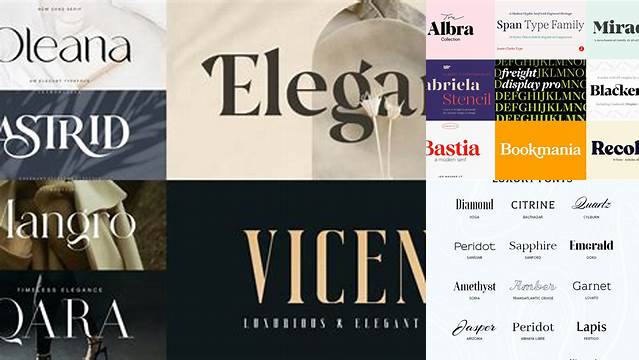
Elegant Fonts For Logos: Design Guide
Choosing the right font is crucial when designing a logo. It's not just about picking something that looks pretty; it's about finding a font that perfectly represents your brand's personality and values. An elegant font can elevate your logo, giving it a sophisticated and timeless feel. But with so many options out there, where do you even begin? Don't worry, guys, we've got you covered! This guide will walk you through everything you need to know about selecting elegant fonts for logos, from understanding different font styles to exploring specific font recommendations and best practices. Let's dive in!
1. Understanding the Importance of Font Choice in Logo Design
The font you choose for your logo is more than just a visual element; it's a powerful communication tool. It's the first thing people see and often the first impression they get of your brand. A well-chosen font can convey trust, sophistication, and credibility, while a poorly chosen font can make your brand look unprofessional or even untrustworthy. Think about it: a playful, cartoonish font might work for a children's toy brand, but it would be a disastrous choice for a law firm. Similarly, an elegant font can instantly add a touch of class and refinement to your logo, making it perfect for luxury brands, high-end services, or businesses that want to project a sense of timeless style. Selecting the right elegant font requires careful consideration of your brand identity, target audience, and the overall message you want to convey. It's an investment in your brand's visual identity that can pay off big time.
2. What Makes a Font Elegant? Key Characteristics
So, what exactly makes a font "elegant"? It's a combination of several key characteristics. Generally, elegant fonts often feature delicate lines, smooth curves, and a sense of balance and harmony. They tend to be classic and timeless, rather than trendy or overly stylized. Serif fonts, with their small decorative strokes at the ends of letters, are often associated with elegance and tradition. Think of fonts like Times New Roman or Garamond – they've been used for centuries and still evoke a sense of sophistication. However, sans-serif fonts, which lack these serifs, can also be elegant when designed with clean lines and a minimalist aesthetic. Ultimately, the elegance of a font comes down to its overall design and how it makes you feel. Does it exude class, refinement, and a timeless appeal? If so, you're on the right track.
3. Serif vs. Sans-Serif: Which is More Elegant?
This is a classic debate in the world of typography! There's no definitive answer, as both serif and sans-serif fonts can be incredibly elegant. Serif fonts, with their traditional serifs, often convey a sense of history, authority, and formality. They're a great choice for brands that want to project a sense of established trust and heritage. Think luxury fashion brands or classic publishing houses. On the other hand, sans-serif fonts, with their clean and modern lines, can also be very elegant, especially when used in minimalist designs. They can convey a sense of sophistication and modernity, making them ideal for tech companies or contemporary brands. The key is to choose a font that aligns with your brand's personality and the overall aesthetic you're trying to achieve. Don't get caught up in the serif vs. sans-serif debate; focus on finding the font that best represents your brand.
4. Top 10 Elegant Serif Fonts for Logos
Ready to explore some specific font recommendations? Let's start with serif fonts. Here are 10 elegant serif fonts that are perfect for logos:
- Garamond: A classic and timeless font that exudes sophistication.
- Times New Roman: A versatile and widely recognized font that conveys authority.
- Bodoni: A bold and stylish font with high contrast between thick and thin strokes.
- Didot: A similar font to Bodoni, known for its elegance and refinement.
- Caslon: A classic serif font with a warm and inviting feel.
- Playfair Display: A modern serif font with a touch of elegance and drama.
- Merriweather: A readable and elegant font that works well in both print and digital.
- Lora: A well-balanced serif font with a contemporary feel.
- Butler: A versatile serif font with a variety of weights and styles.
- Mrs Eaves: A quirky and elegant font with a unique personality.
5. Top 10 Elegant Sans-Serif Fonts for Logos
Now, let's move on to sans-serif fonts. These fonts offer a cleaner, more modern aesthetic, but can still be incredibly elegant. Here are 10 excellent choices:
- Helvetica: A timeless and versatile font that's a staple in the design world.
- Futura: A geometric sans-serif font with a clean and modern feel.
- Avenir: A well-balanced and readable sans-serif font.
- Century Gothic: A stylish and geometric sans-serif font.
- Montserrat: A popular and versatile sans-serif font with a modern feel.
- Raleway: An elegant and sophisticated sans-serif font.
- Poppins: A geometric sans-serif font that's perfect for digital use.
- Lato: A modern and readable sans-serif font with a warm feel.
- Open Sans: A highly readable and versatile sans-serif font.
- Circular Std: A geometric sans-serif font with a contemporary feel.
6. Combining Elegant Fonts: Pairings That Work
Sometimes, the most effective logos use a combination of fonts. This allows you to create visual interest and highlight different aspects of your brand. When pairing fonts, it's important to choose fonts that complement each other, rather than clash. A common approach is to pair a serif font with a sans-serif font. For example, you could use a bold serif font for your brand name and a clean sans-serif font for your tagline. Or, you could pair a classic serif font like Garamond with a modern sans-serif font like Montserrat. Experiment with different pairings to see what works best for your brand. Just remember to keep it simple – using more than two fonts in a logo can make it look cluttered and confusing.
7. The Psychology of Fonts: How Fonts Evoke Emotions
Fonts have the power to evoke emotions and associations. This is because we subconsciously associate certain font styles with different qualities and characteristics. For example, serif fonts often evoke feelings of tradition, authority, and trustworthiness, while sans-serif fonts tend to convey modernity, simplicity, and clarity. Script fonts can evoke elegance, femininity, and creativity, while display fonts can convey personality, playfulness, and boldness. Understanding the psychology of fonts can help you choose a font that aligns with your brand's personality and the emotions you want to evoke in your audience. Think about the feeling you want your logo to convey and choose a font that supports that message.
8. Font Licensing: Understanding Usage Rights
Before you start using a font in your logo, it's crucial to understand its licensing terms. Most fonts are copyrighted, and you need a license to use them legally. Some fonts are free for personal use but require a commercial license for business purposes. Other fonts are only available for purchase. Using a font without the proper license can lead to legal issues and financial penalties. Always check the font's licensing terms before using it in your logo or other branding materials. There are many resources online where you can find free and paid fonts with clear licensing information.
9. Where to Find Elegant Fonts: Resources and Marketplaces
So, where can you find these elegant fonts we've been talking about? There are tons of resources available, both free and paid. Here are a few popular options:
- Google Fonts: A vast library of free, open-source fonts that are perfect for websites and logos.
- Adobe Fonts: A subscription-based service that offers access to thousands of high-quality fonts.
- MyFonts: A marketplace where you can purchase fonts from independent designers.
- Fontspring: Another font marketplace with a wide selection of fonts.
- Creative Market: A marketplace that offers fonts, graphics, and other design assets.
Explore these resources and find the perfect font for your logo. Don't be afraid to try out different options and see what resonates with your brand.
10. Font Weight and Size: Considerations for Legibility
Even the most elegant font won't be effective if it's not legible. Font weight and size play a crucial role in legibility, especially in a logo. A font that's too thin or too small might be difficult to read, especially when printed on a small scale or viewed on a mobile device. Conversely, a font that's too bold or too large can look overwhelming and detract from the overall design. Choose a font weight and size that's appropriate for your logo's context and ensure that it's legible across different mediums. Test your logo at various sizes to ensure it remains clear and readable.
11. Kerning and Letter Spacing: Fine-Tuning Your Font
Kerning and letter spacing are subtle but important aspects of typography that can significantly impact the appearance of your logo. Kerning refers to the spacing between individual letters, while letter spacing refers to the overall spacing between all letters in a word or phrase. Adjusting kerning and letter spacing can improve legibility and create a more visually pleasing logo. If the letters in your logo are too close together, it can look cramped and difficult to read. If they're too far apart, the logo can look disjointed. Fine-tuning kerning and letter spacing is a crucial step in the logo design process.
12. Font Color: Complementing Your Elegant Font Choice
The color you choose for your font can further enhance its elegance and impact. Classic colors like black, white, and gold often convey sophistication and luxury. However, don't feel limited to these traditional choices. Consider your brand's color palette and choose a font color that complements it. A subtle pastel color can add a touch of elegance and femininity, while a deep jewel tone can convey richness and sophistication. Experiment with different color combinations to find what works best for your brand and the overall aesthetic you're trying to achieve. The font color should work in harmony with the font itself to create a cohesive and visually appealing logo.
13. Font Hierarchy: Creating Visual Interest in Your Logo
If your logo includes multiple words or elements, font hierarchy can help you create visual interest and guide the viewer's eye. Font hierarchy refers to the use of different font sizes, weights, and styles to emphasize certain elements over others. For example, you might use a larger, bolder font for your brand name and a smaller, lighter font for your tagline. This creates a clear visual distinction and helps viewers understand the relative importance of different elements. Experiment with font hierarchy to create a logo that's both visually appealing and easy to understand. A well-defined font hierarchy can make your logo more impactful and memorable.
14. Font Adaptability: Ensuring Your Logo Works Across Platforms
In today's digital world, it's essential to ensure that your logo looks good across different platforms and devices. This means choosing a font that's adaptable and scalable. Some fonts look great in print but lose their legibility on screen, while others are optimized for digital use but don't translate well to print. Choose a font that works well in both mediums and consider its scalability. Test your logo at different sizes to ensure that it remains clear and readable on everything from business cards to billboards. A versatile font will ensure that your logo looks its best, no matter where it's displayed.
15. Font Trends: Should You Follow Them?
Font trends come and go, just like any other design trend. While it can be tempting to choose a trendy font for your logo, it's important to consider the long-term implications. A trendy font might look great today, but it could feel dated in a few years. An elegant font, on the other hand, is often timeless and classic. While it's good to be aware of current font trends, don't feel obligated to follow them. Focus on choosing a font that aligns with your brand's personality and values, rather than one that's simply popular at the moment. A timeless font will ensure that your logo remains relevant for years to come.
16. Creating a Mood Board for Elegant Font Inspiration
If you're feeling stuck or overwhelmed by the font selection process, creating a mood board can be a helpful way to gather inspiration. A mood board is a visual collage that represents your brand's aesthetic and personality. Include images, colors, textures, and other elements that resonate with your brand. You can also include examples of elegant fonts that you like. Creating a mood board can help you clarify your vision and make the font selection process more focused. It's a great way to visually explore different options and identify fonts that align with your brand's overall style.
17. The Importance of Testing Your Font Choices
Once you've narrowed down your font choices, it's essential to test them in different contexts. See how they look on your website, social media profiles, and printed materials. Get feedback from others and see what resonates with them. Testing your font choices can help you identify any potential issues and ensure that your logo looks its best across different mediums. It's a crucial step in the logo design process that can prevent costly mistakes down the road. Don't skip the testing phase; it's worth the effort.
18. Using Elegant Fonts in Different Industries
Elegant fonts can be used effectively in a variety of industries, from luxury fashion to high-end services. However, it's important to choose a font that's appropriate for your specific industry and target audience. For example, a classic serif font might be a great choice for a law firm or a financial institution, while a modern sans-serif font might be a better fit for a tech company or a creative agency. Consider your industry's norms and expectations when choosing a font. Research what fonts are commonly used in your industry and see if they align with your brand's personality and values. Choosing a font that's appropriate for your industry can help you establish credibility and connect with your target audience.
19. The Role of Font in Brand Recognition
A well-chosen font can play a significant role in brand recognition. When people see your logo, they'll subconsciously associate the font with your brand. If you choose a unique and memorable font, it can help your logo stand out and become instantly recognizable. Think about iconic logos like Coca-Cola or Disney – the fonts they use are instantly recognizable and associated with their brands. Choosing a distinctive font can help you create a strong brand identity and improve brand recognition. It's an investment in your brand's visual identity that can pay off big time.
20. Common Mistakes to Avoid When Choosing Logo Fonts
Choosing the right font for your logo is crucial, but it's also easy to make mistakes. Here are a few common mistakes to avoid:
- Choosing a font that's too trendy: As we discussed earlier, trendy fonts can quickly become dated.
- Using too many fonts: Sticking to one or two fonts creates a more cohesive and professional look.
- Ignoring legibility: A beautiful font is useless if it's not readable.
- Not considering the font's licensing terms: Using a font without a proper license can lead to legal issues.
- Copying competitors: Your logo should be unique and distinctive.
By avoiding these common mistakes, you can ensure that you choose a font that represents your brand effectively.
21. Elegant Script Fonts: Adding a Touch of Personality
Script fonts, with their flowing strokes and handwritten feel, can add a touch of personality and elegance to your logo. These fonts are often associated with creativity, femininity, and sophistication. They're a great choice for brands that want to project a personal and welcoming image. However, script fonts can also be challenging to use effectively. They can be difficult to read at small sizes, and some script fonts can look cluttered or overwhelming. If you're considering using a script font, make sure it's legible and that it aligns with your brand's overall aesthetic. Use script fonts sparingly and pair them with a cleaner font for maximum impact.
22. The Use of Ligatures in Elegant Font Design
Ligatures are special characters that combine two or more letters into a single glyph. They're often used in elegant fonts to create a more fluid and refined appearance. Ligatures can add a touch of sophistication and visual interest to your logo. However, it's important to use ligatures sparingly and in a way that enhances legibility. Overusing ligatures can make your logo look cluttered and difficult to read. Choose fonts with well-designed ligatures and use them strategically to create a subtle but impactful effect. Ligatures are a great way to elevate the elegance of your font choice.
23. Custom Font Design: Creating a Unique Brand Identity
If you truly want to create a unique brand identity, consider commissioning a custom font design. This involves working with a typographer to create a font that's specifically tailored to your brand's needs and personality. Custom fonts can be a significant investment, but they offer several advantages. They ensure that your logo is truly unique and distinctive, and they can help you establish a strong brand identity. A custom font can also be a valuable asset for your brand, as it can be used in all your marketing materials. If you're looking for a truly one-of-a-kind logo, a custom font design might be the perfect solution.
24. Font Alternatives: Finding the Perfect Substitute
Sometimes, you might fall in love with a font that's either too expensive or unavailable for commercial use. In these cases, it's helpful to know how to find font alternatives. There are many online tools and resources that can help you identify fonts that are similar to your favorite fonts. You can also consult with a designer or typographer for recommendations. When searching for font alternatives, focus on finding fonts that share similar characteristics in terms of weight, style, and overall aesthetic. A good font alternative can provide a similar look and feel without breaking the bank or violating copyright laws.
25. The Impact of Font on Website Design
Elegant fonts aren't just for logos; they can also enhance your website design. Choosing the right font for your website can improve readability, create a visually appealing experience, and reinforce your brand identity. When choosing fonts for your website, consider factors like legibility on screen, font pairing, and loading speed. Some fonts can slow down your website's loading time, so it's important to choose fonts that are optimized for web use. Use elegant fonts strategically to create a website that's both beautiful and functional. Your website's typography plays a crucial role in the overall user experience.
26. Elegant Fonts for Print Materials: Business Cards and More
In addition to logos and websites, elegant fonts can also elevate your print materials, such as business cards, brochures, and letterheads. Choosing the right font for your print materials can create a professional and polished impression. When selecting fonts for print, consider factors like legibility, paper stock, and printing method. Some fonts look great on certain types of paper but not others. Test your font choices on different paper stocks to see what works best. Elegant fonts can help your print materials stand out and make a lasting impression.
27. How Font Choice Affects Brand Perception
Your font choice has a direct impact on how people perceive your brand. A well-chosen font can convey trust, sophistication, and credibility, while a poorly chosen font can damage your brand's reputation. Think about the message you want to convey and choose a font that supports that message. Consider your target audience and choose a font that resonates with them. Your font choice is a powerful communication tool that can shape your brand's image. Use it wisely.
28. The Future of Elegant Font Design: Trends and Innovations
The world of typography is constantly evolving, with new fonts and design trends emerging all the time. As technology advances, we can expect to see even more innovation in font design. Variable fonts, which allow for greater flexibility and customization, are becoming increasingly popular. We're also seeing a growing interest in hand-drawn and organic fonts, which add a personal touch to designs. Keep an eye on these trends and innovations to stay ahead of the curve in elegant font design.
29. Maintaining Font Consistency Across Branding Materials
Consistency is key when it comes to branding. Using the same fonts across all your branding materials creates a cohesive and professional image. This includes your logo, website, print materials, and social media profiles. Consistency in font choice helps to reinforce your brand identity and make your brand more recognizable. Create a brand style guide that outlines your font choices and ensure that everyone on your team adheres to it. Font consistency is a crucial element of effective branding.
30. Elegant Fonts: A Timeless Investment in Your Brand
Choosing an elegant font for your logo is an investment in your brand's long-term success. An elegant font can elevate your logo, convey sophistication, and create a timeless appeal. It's a crucial element of your brand's visual identity that can help you stand out from the competition and connect with your target audience. Take the time to choose a font that truly represents your brand and you'll be rewarded with a logo that's both beautiful and effective. So go out there, explore the world of elegant fonts, and find the perfect one for your brand!